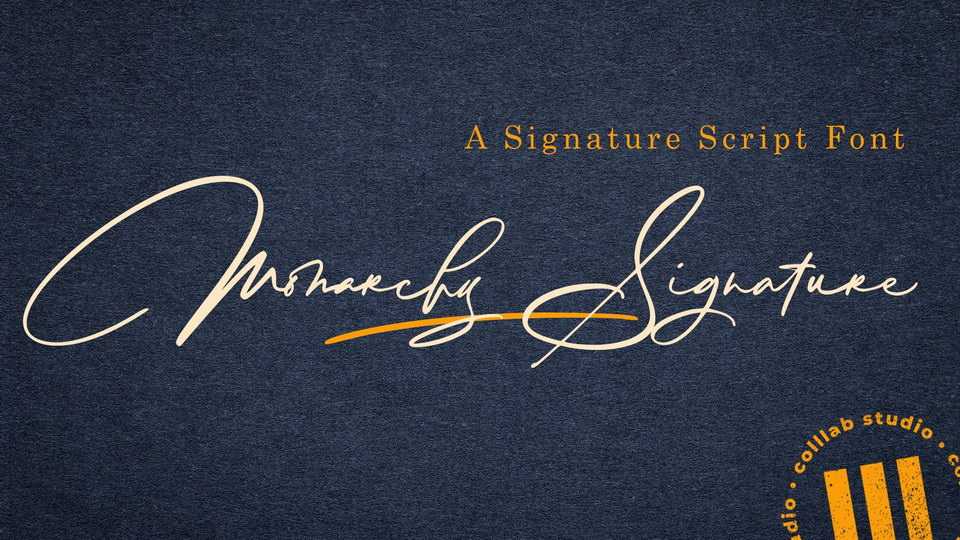
Download Monarchy Signature font, a stylish and incredibly elegant script typeface. It looks stunning on wedding invitations, thank you cards, quotes, greeting cards, logos, business cards and every other design which needs a handwritten touch.